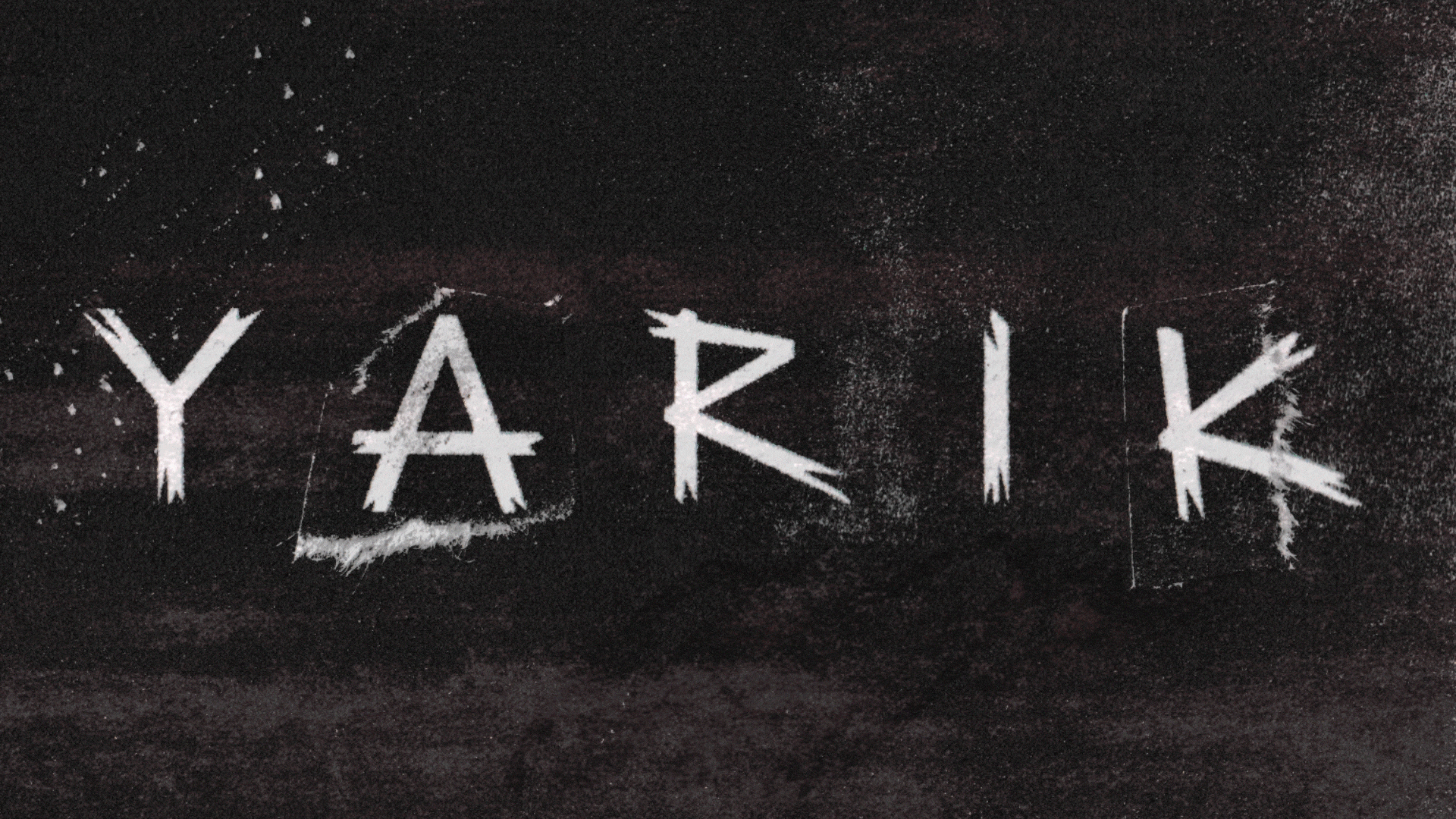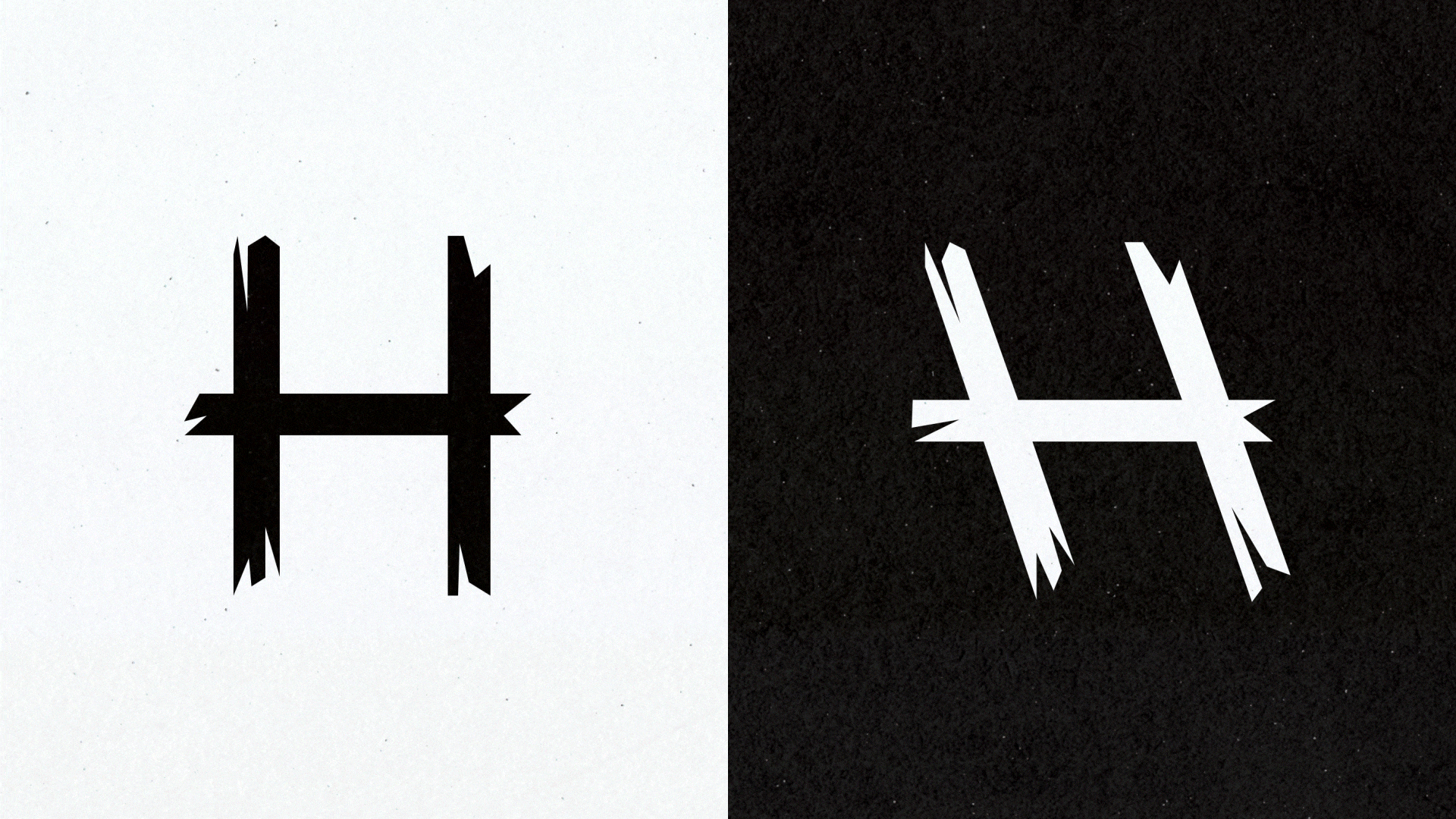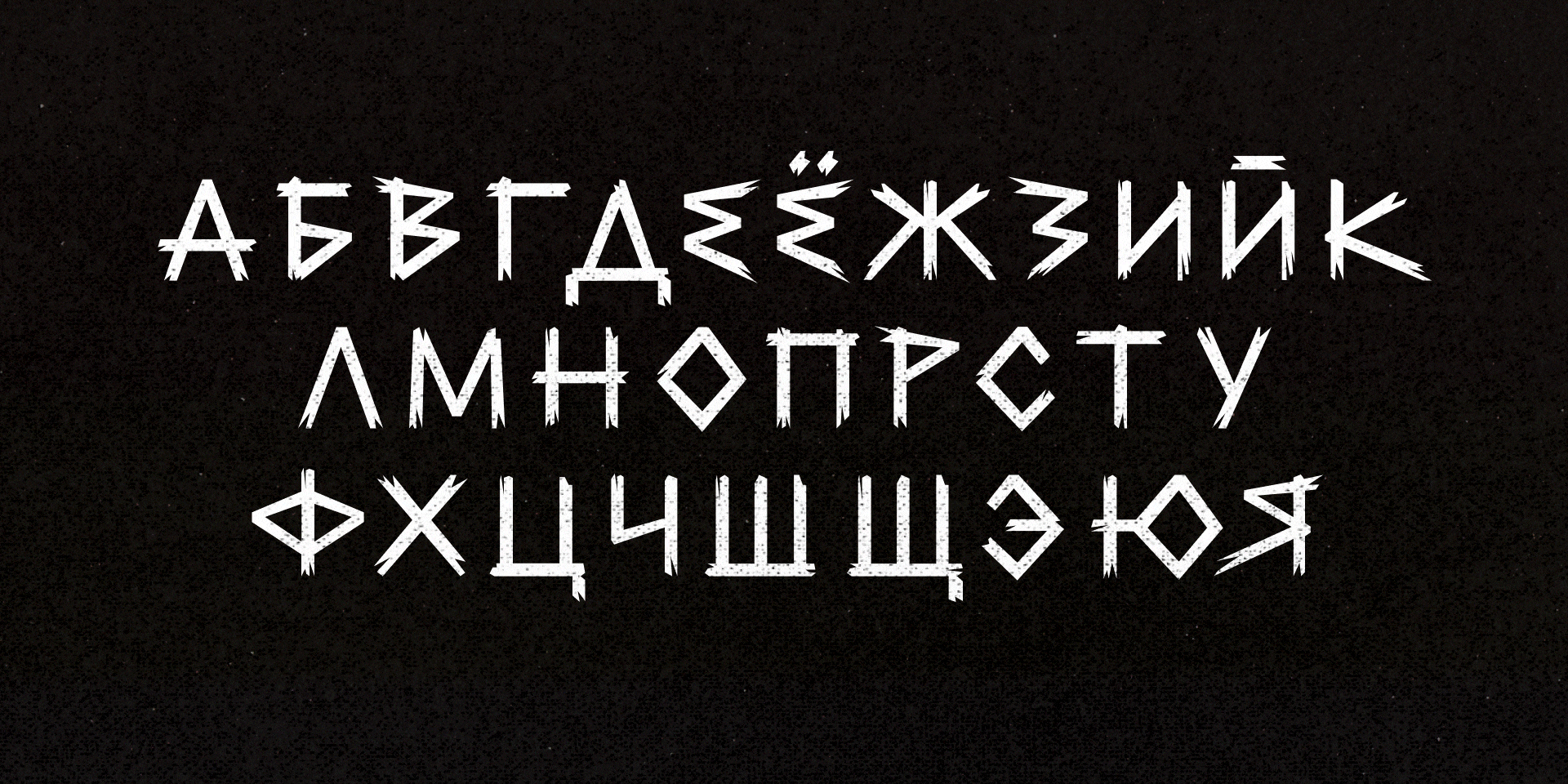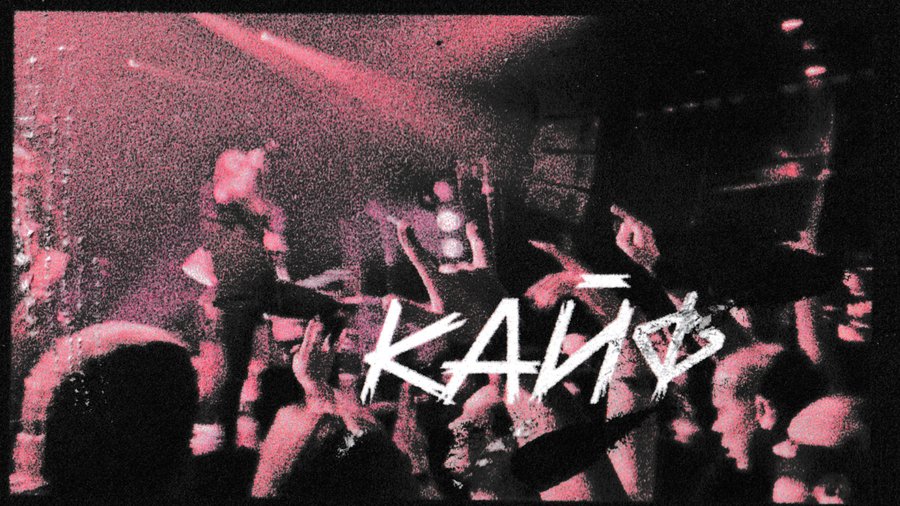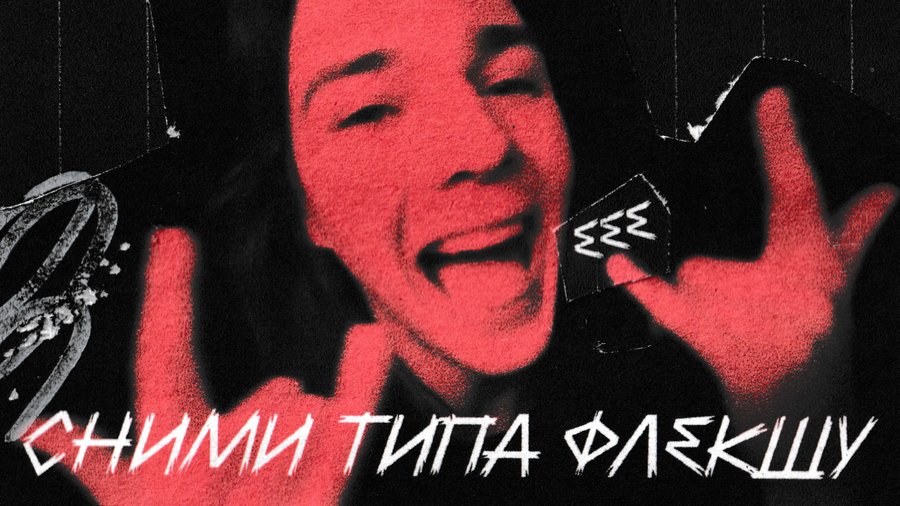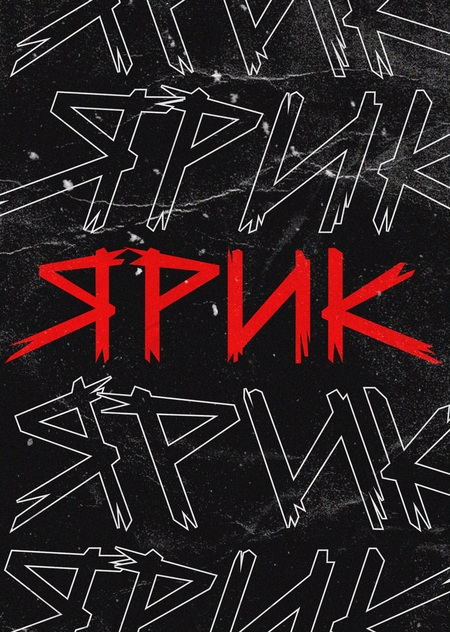
JARIC Punk Rock
JARC is a typeface inspired by rock poster style. Aggressive in appearance, but with a good heart. It has three lines: Regular, Slant, and Backslant.
The typeface promo video: YRIK turns into a punk character who’s ripping off at the concert.